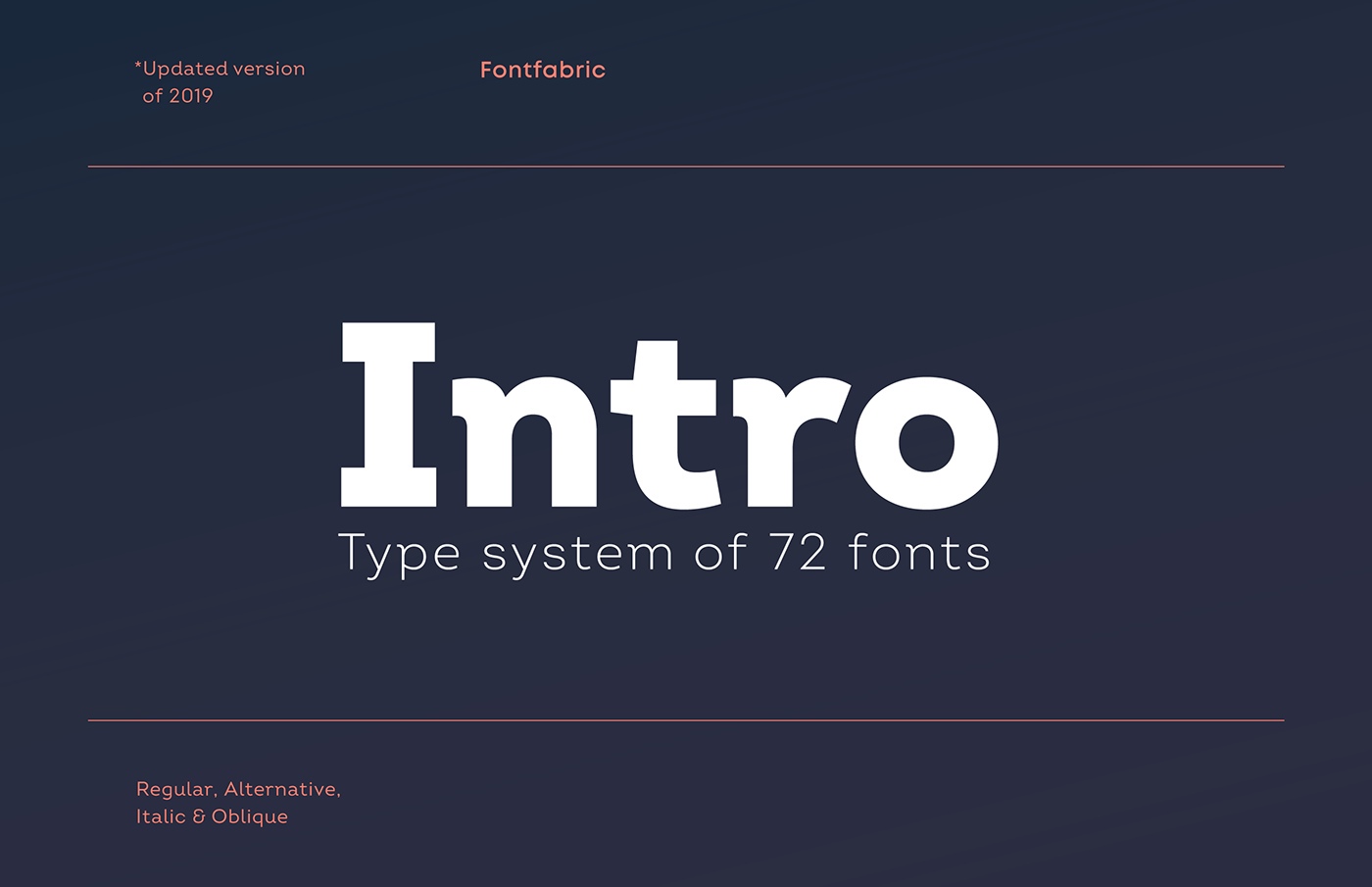
Intro Font Family
Intro Font Family is perfect for modern tech branding, startup logo design, contemporary web interfaces, clean editorial layouts, minimalist packaging solutions, corporate presentations, digital app typography, and progressive advertising campaigns. This versatile typeface collection works exceptionally well in both digital applications and print media where clarity, innovation, and forward-thinking design are fundamental requirements.
What makes Intro Font Family so exciting is its perfect balance of geometric precision and contemporary accessibility that creates an ideal foundation for modern brand communications across diverse industries. The font features clean, well-proportioned letterforms with optimized spacing, subtle character details, and systematic design approach that ensures exceptional legibility while maintaining distinctive personality. Its professional versatility and modern aesthetic make it ideal for brands seeking reliable typography that communicates innovation, efficiency, and contemporary professionalism while adapting seamlessly to various applications.
The Intro Font Family includes comprehensive weight variations from thin to black, along with matching italic styles, condensed versions, and display alternates. Each style maintains the typeface's systematic clarity while offering extensive multilingual support, complete numeral sets, comprehensive punctuation, and special characters designed to meet demanding requirements of global communications and international brand applications.
This exceptional typeface collection represents the evolution of contemporary sans-serif design optimized for multi-platform brand systems. Whether you're developing technology startup identities, creating user interface designs, or building comprehensive brand guidelines, Intro Font Family Free Download provides the reliable foundation and professional appeal needed for successful modern communications. The font's systematic approach makes it particularly effective for software companies, design agencies, consulting firms, and organizations prioritizing clarity and contemporary sophistication.
The precisely engineered metrics and optimized rendering performance in Intro Font Family ensure consistent excellence across all devices and media while maintaining clean aesthetic integrity. Its exceptional scalability allows seamless application from small interface elements to large display typography, making it an invaluable cornerstone for comprehensive design systems requiring both technical reliability and visual sophistication.